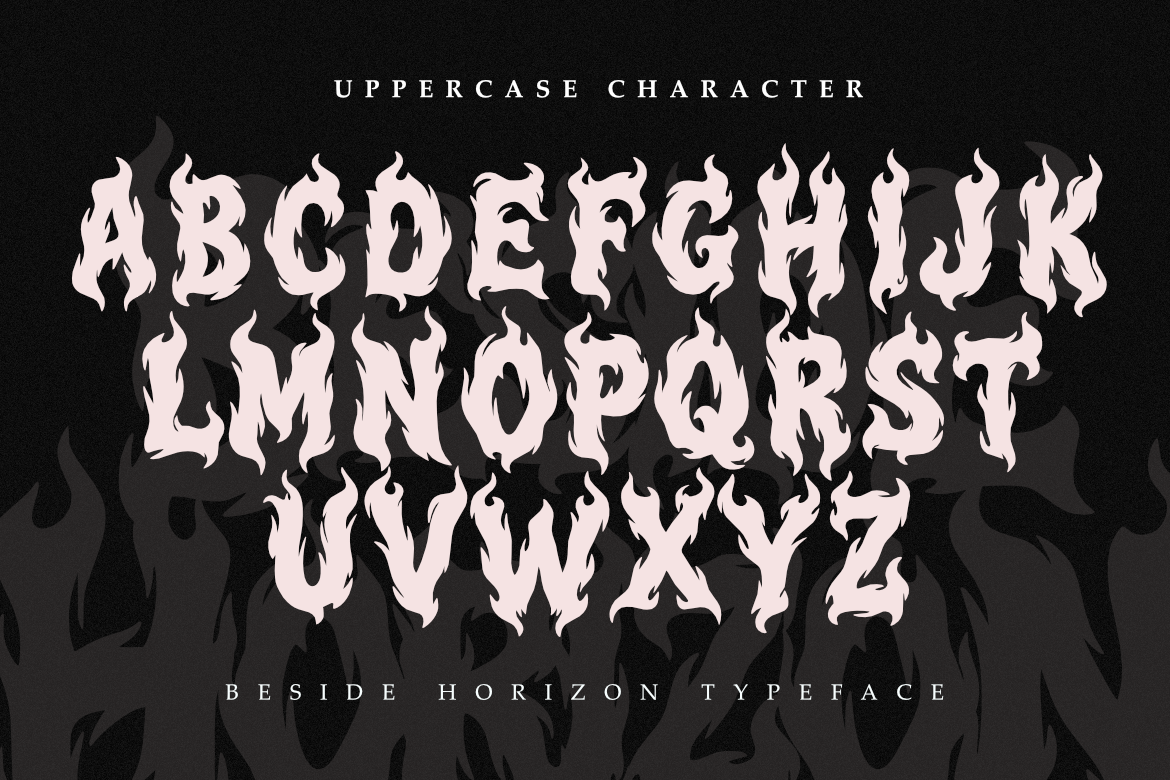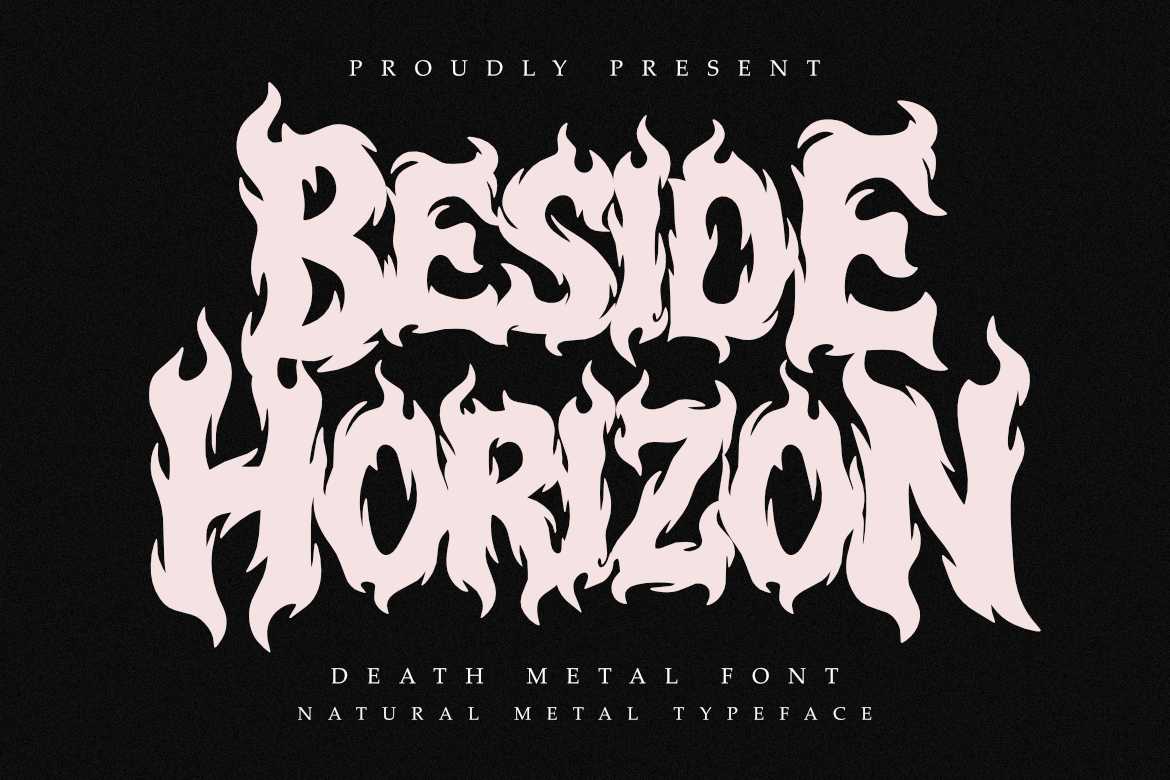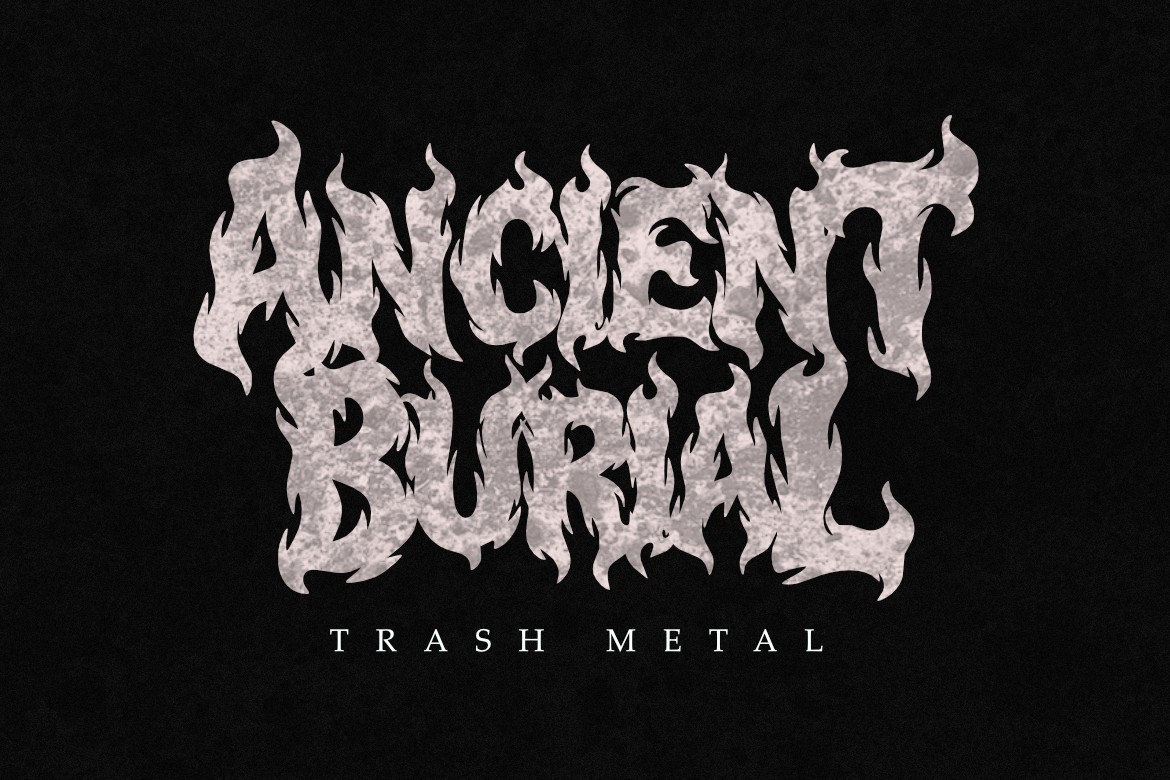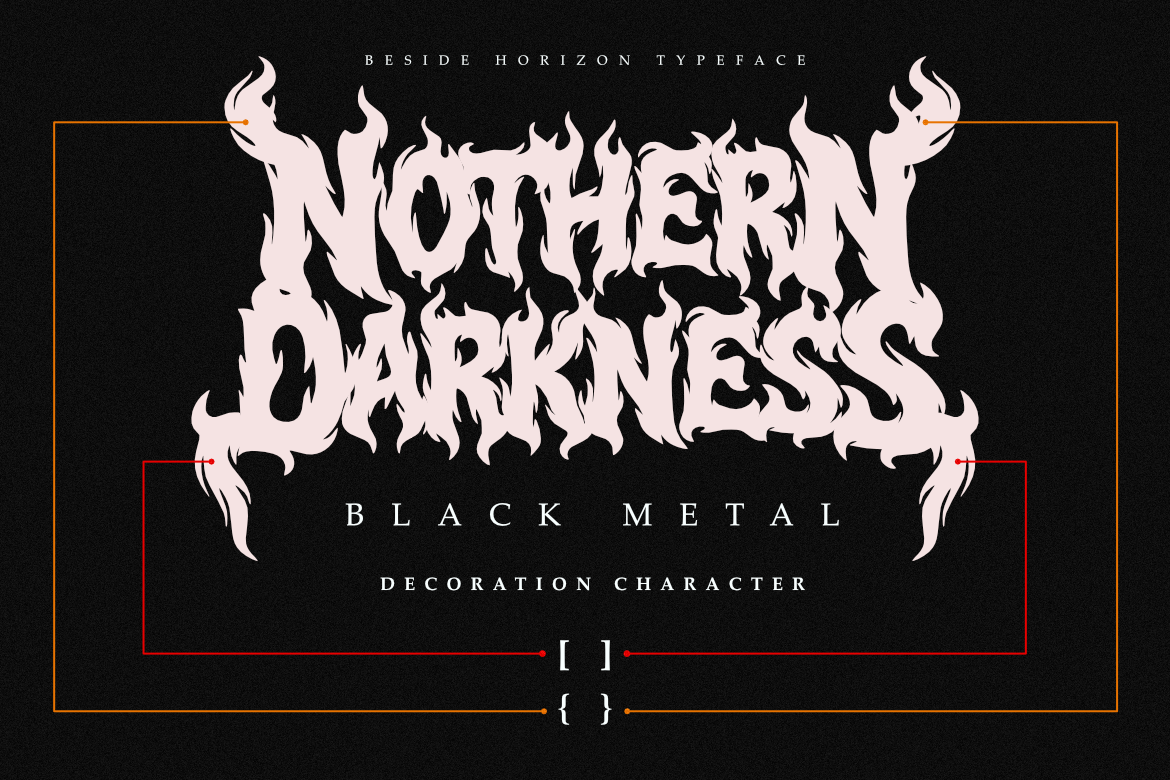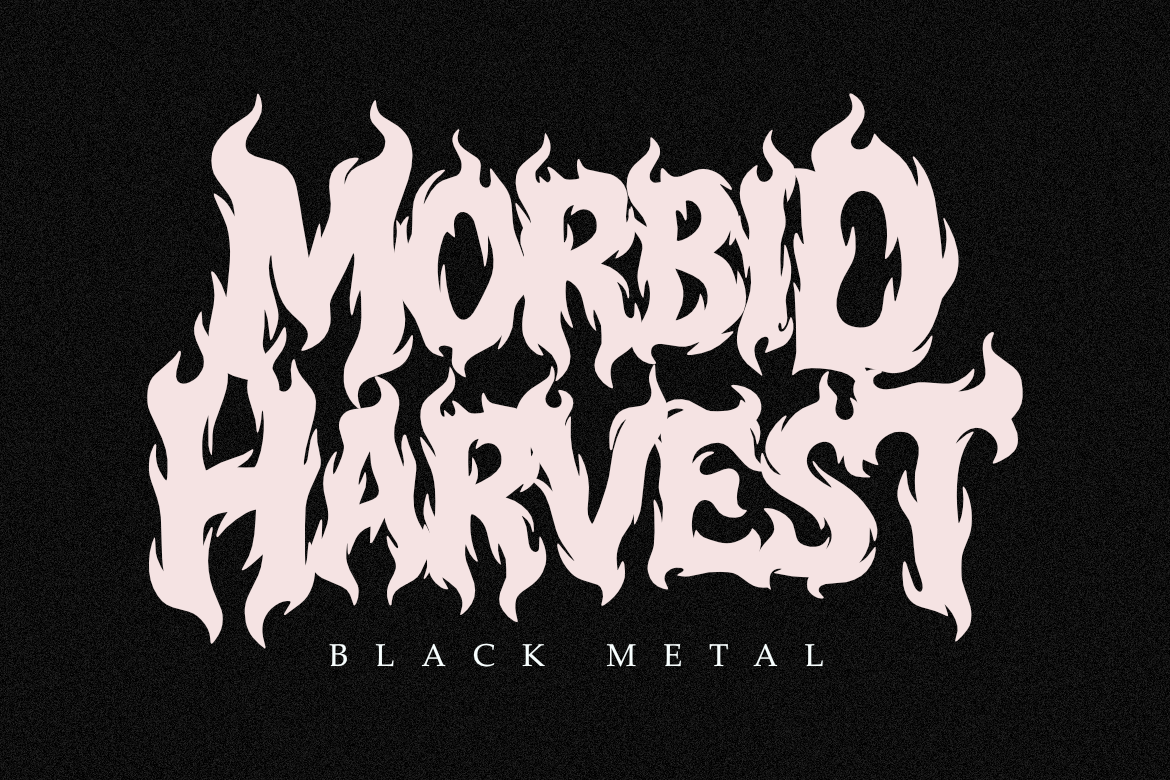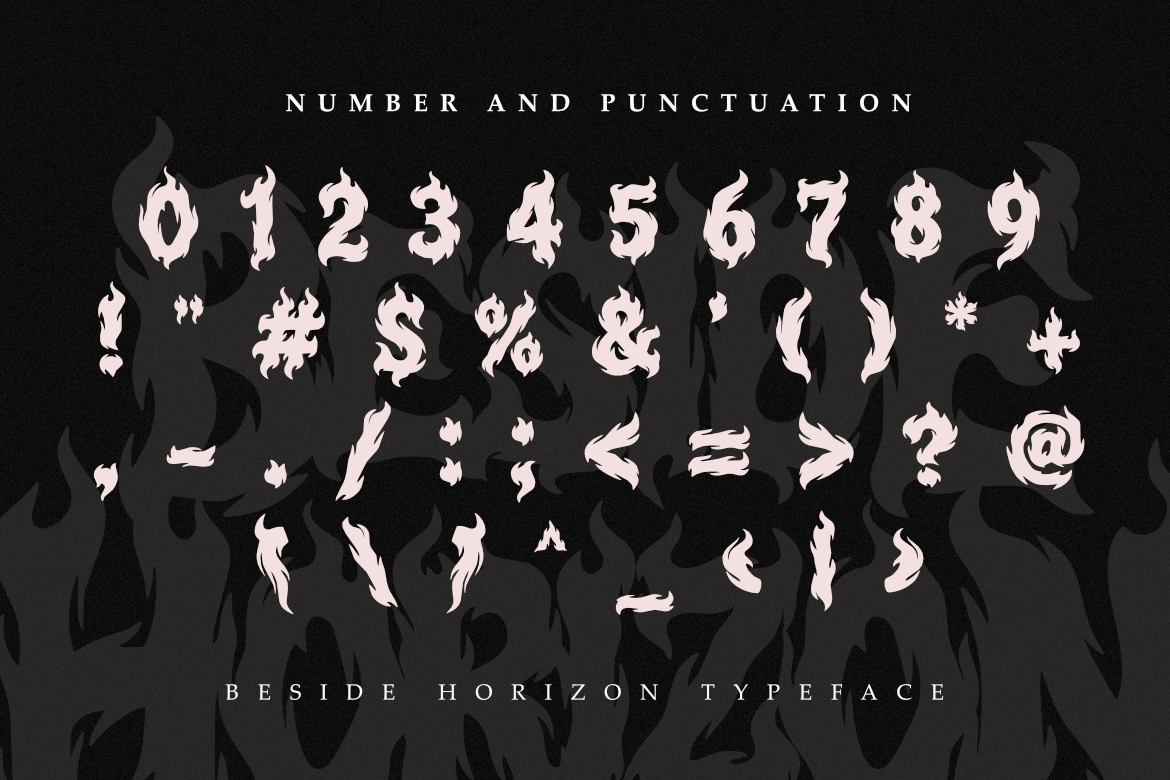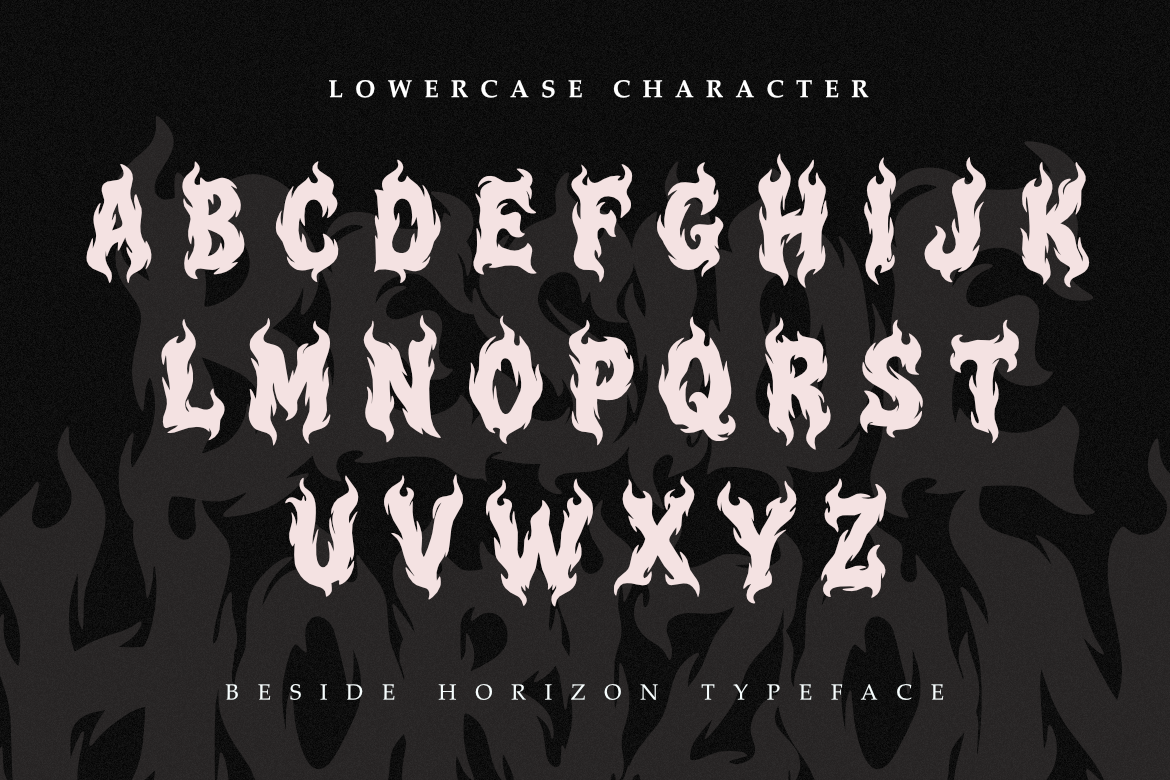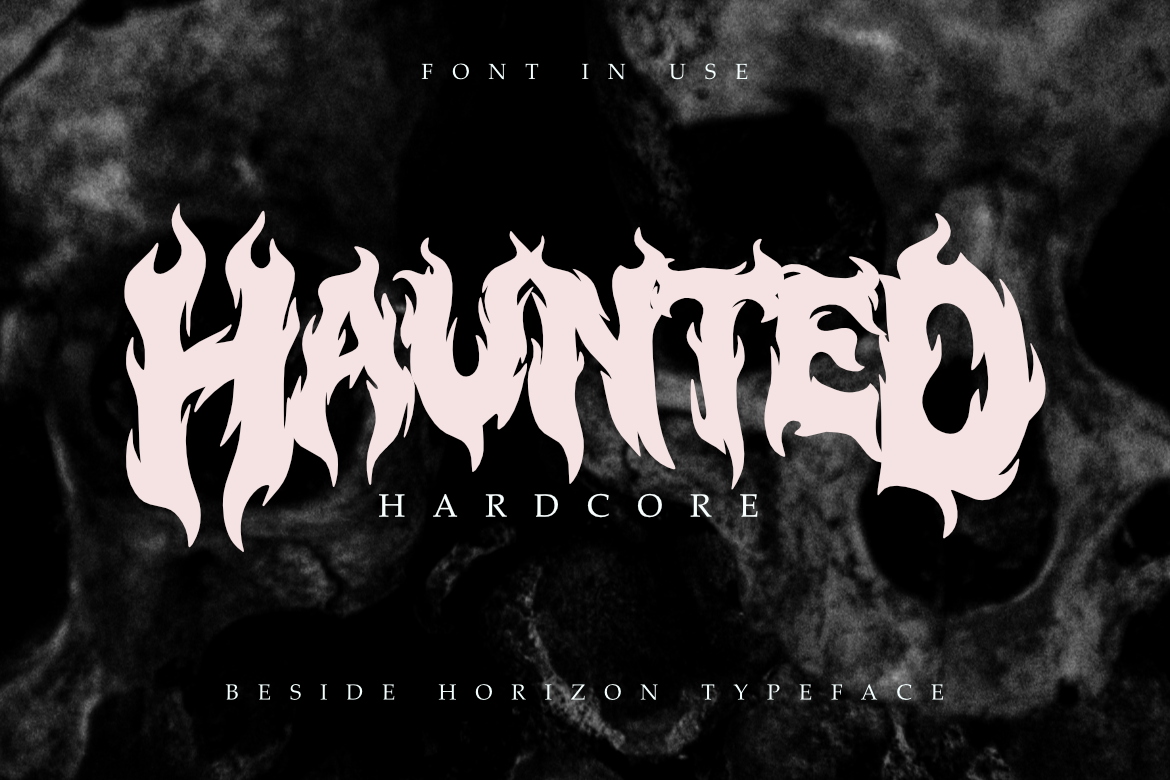
Beside Horizon - Natural Death Metal Font
Beside Horizon is a brutal professional font designed for sophisticated branding and high-end extreme design projects.
Its fluid and aggressive letterforms provide a contemporary yet timeless feel, striking a perfect balance between organic fire-like structures and modern metal aesthetics. This font embodies the essence of modern minimalism while maintaining a sense of raw power and refinement, making it perfect for logos, corporate materials, and professional presentations.
Whether you are crafting a corporate identity for an extreme label, designing sleek business cards for a tattoo studio, or working on editorial content, Beside Horizon ensures your work exudes professionalism and style. It is ideal for branding, business logos, websites, and more, helping you communicate a polished and powerful aesthetic that leaves a lasting impression.
Inspired by the vibrant energy of the underground scene and natural fluid elements, Beside Horizon offers versatility and adaptability for various design applications, ensuring your project stands out with a dark, professional edge.
• Bold, organic, and aggressive death metal style.
• Unique fire-inspired “natural metal” letterforms.
• Perfect for high-end branding and logos.
• Designed for maximum visual impact in display use.